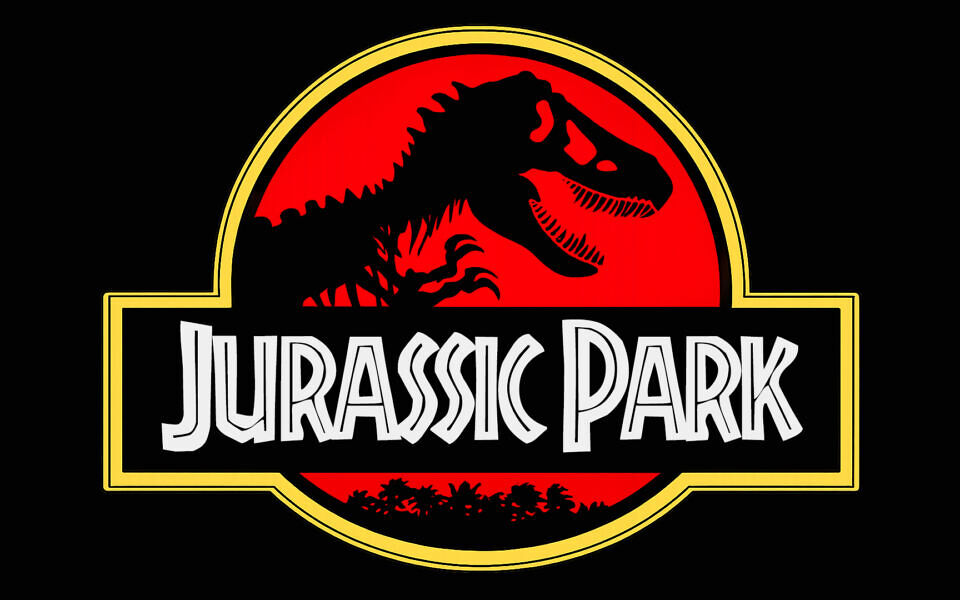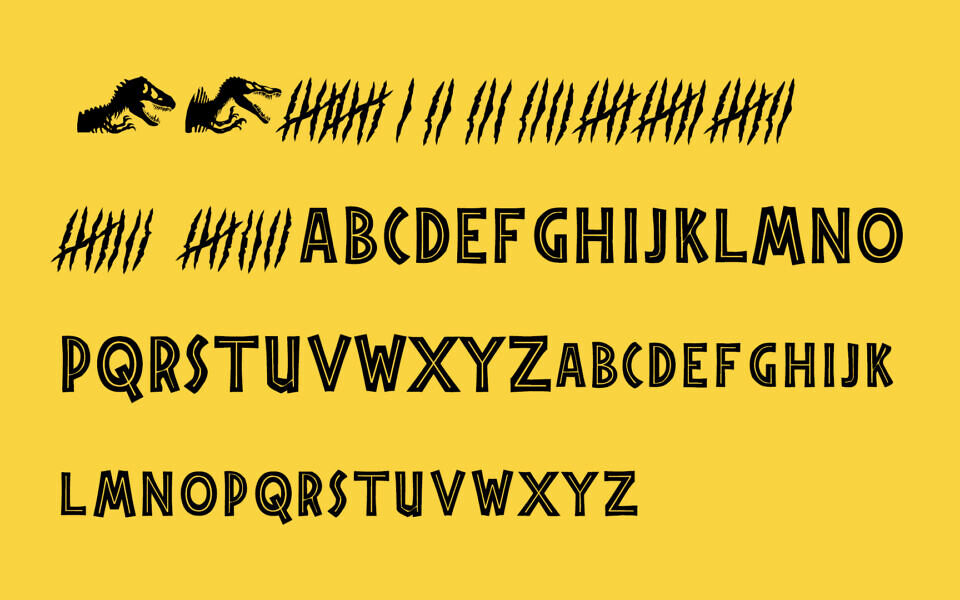
Jurassic Park Font
Inspired by Rudolf Koch’s classic Neuland typeface, the Jurassic Park Logo Font is a rugged, decorative display font immortalized by the iconic 1993 dinosaur movie. Its distinctive inline styling and primitive, bold letterforms perfectly evoke a sense of wild jungle exploration and exotic adventure.
Ideal for prehistoric, African, or tiki-themed designs, this striking font instantly delivers a thrilling, nostalgic energy. It captures the fierce, untamed spirit of the prehistoric era in every character.